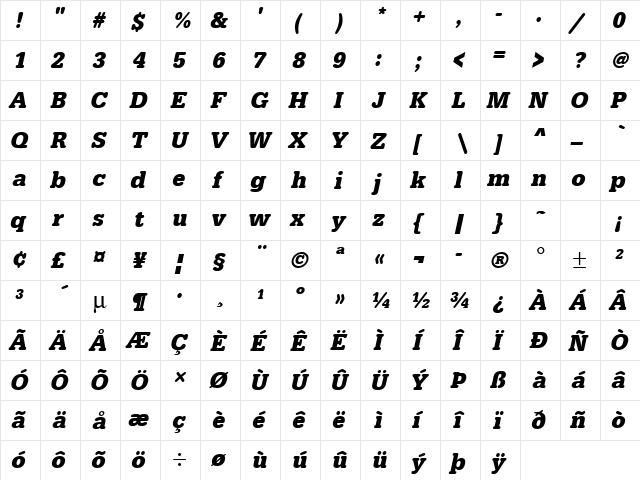
URWTypewriterTNar Bold Oblique Font Preview
Design Context for URWTypewriterTNar Typeface
URWTypewriterTNar brings the precise, column-aligned rhythm of monospaced typography to designs that value technical clarity and systematic order. Its italic angle brings a sense of urgency and motion to the letterforms. The heavy weight commands attention and anchors typographic hierarchies.
A natural fit for code editors, technical documentation, developer-focused branding, and terminal-inspired UI.
Pro Tip: Pair URWTypewriterTNar with a proportional sans for UI contexts where code-style labels and regular body copy need to coexist.